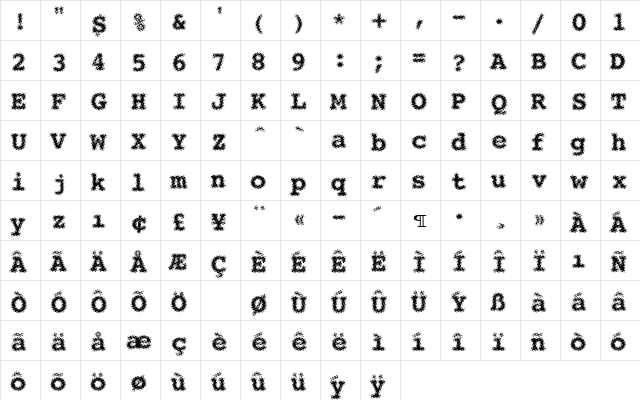
See Regular
Design Context for See Typeface
See takes a measured approach to typography — its balanced proportions and neutral character make it a reliable workhorse for both digital and print work.
Pro Tip: Pair See with a font of contrasting weight or personality to build a more expressive typographic hierarchy.